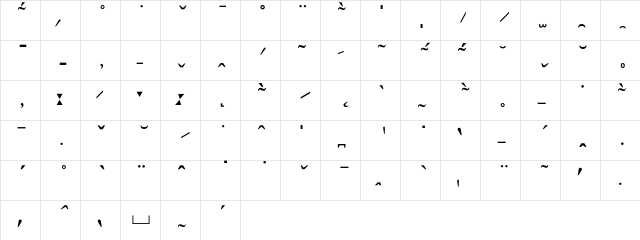
Phonetics P02 Free Font
Phonetics P02
Style: P02
Phonetics Family
Phonetics P02
Complete Phonetics P02 glyph index. Displaying only characters natively supported by Phonetics P02 font.
Design Context for Phonetics
Phonetics is a composed and adaptable typeface that performs quietly and consistently across a wide range of design contexts.